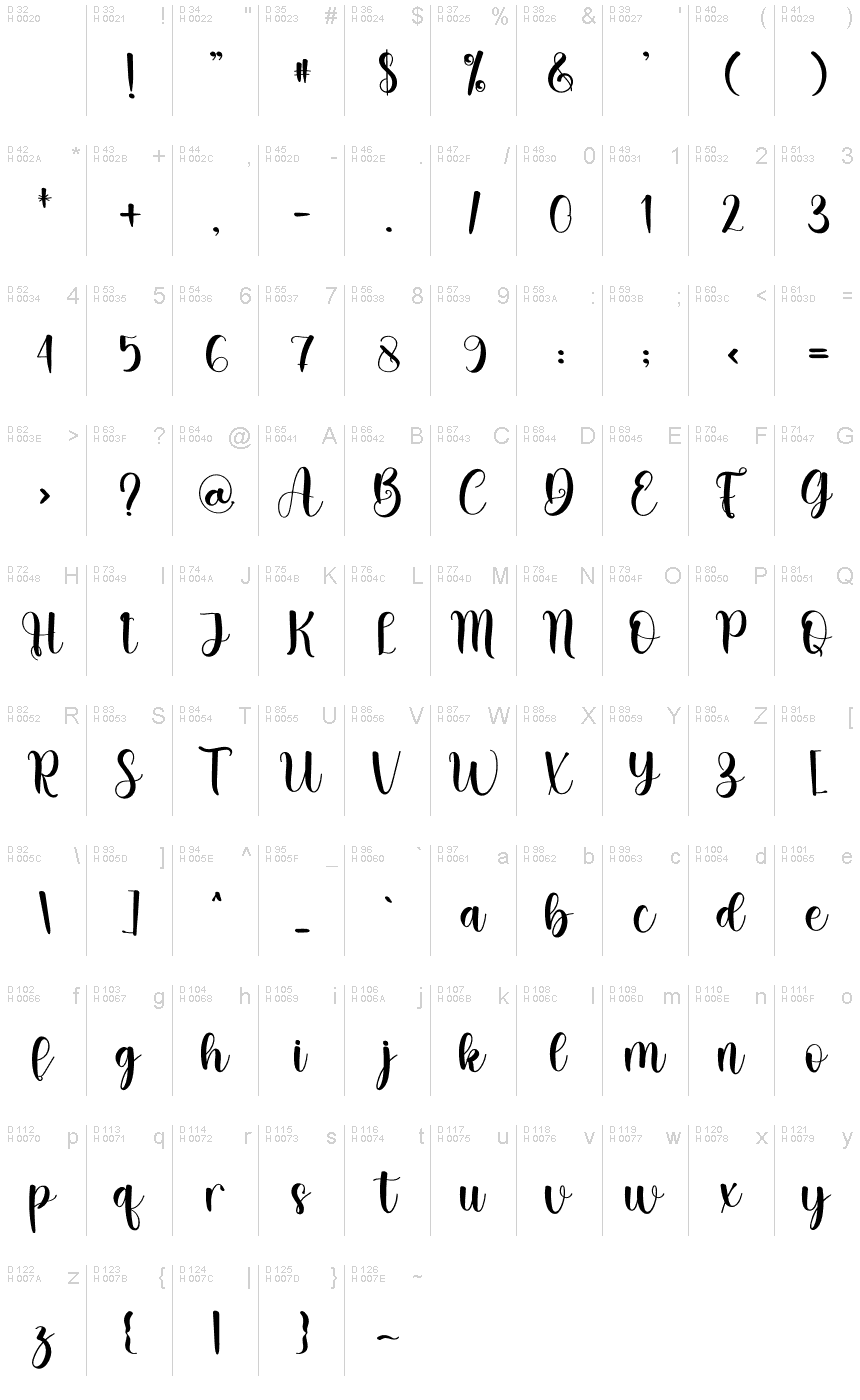
Bowling
Bowling, a captivating calligraphy font by Inermedia Studio, combines elegance with a touch of playfulness. With its semi-light weight, this font exudes grace and sophistication while maintaining legibility. Perfect for wedding invitations, greeting cards, and elegant branding projects, Bowling adds a luxurious flair to any design. Its fluid strokes and intricate details create an organic feel that is both charming and versatile. Whether you're designing for a high-end event or crafting a unique logo, Bowling will surely elevate your projects to new heights.